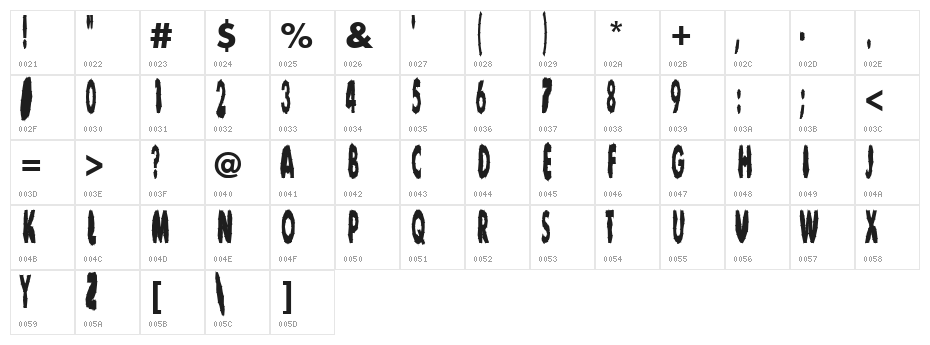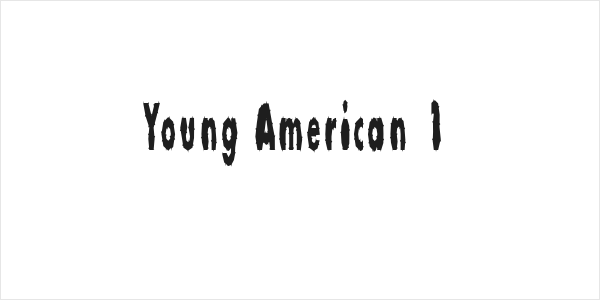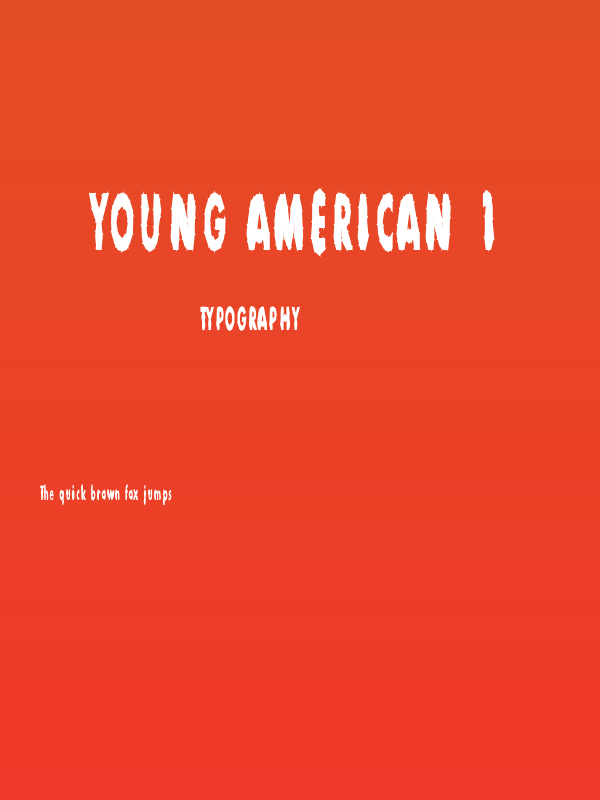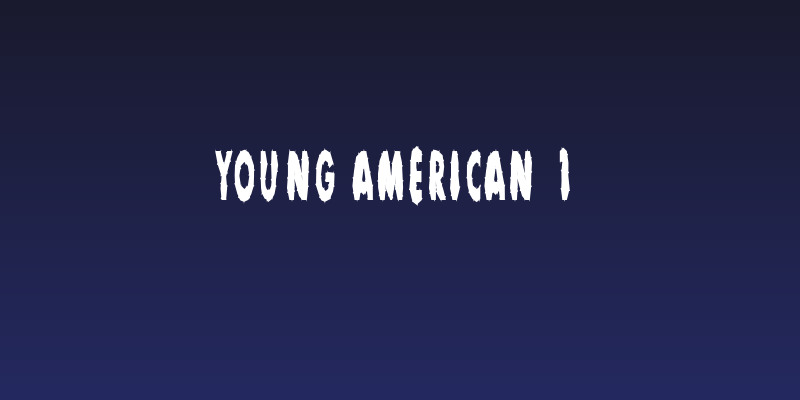
Young American 1 Font
Young American 1 Description
This font features a bold and rugged design with a distressed, grunge-like appearance. The characters are heavily stylized with uneven edges and a hand-crafted feel, giving it a raw and edgy look. The uppercase and lowercase letters maintain a consistent style, while the numbers and special characters complement the overall aesthetic. The font's unique texture and bold presence make it stand out, ideal for projects that require a strong visual impact.
| Overall Style | Grunge, Edgy, Raw |
| Proposed Projects | Ideal for album covers, posters, streetwear branding, and edgy graphic designs. |